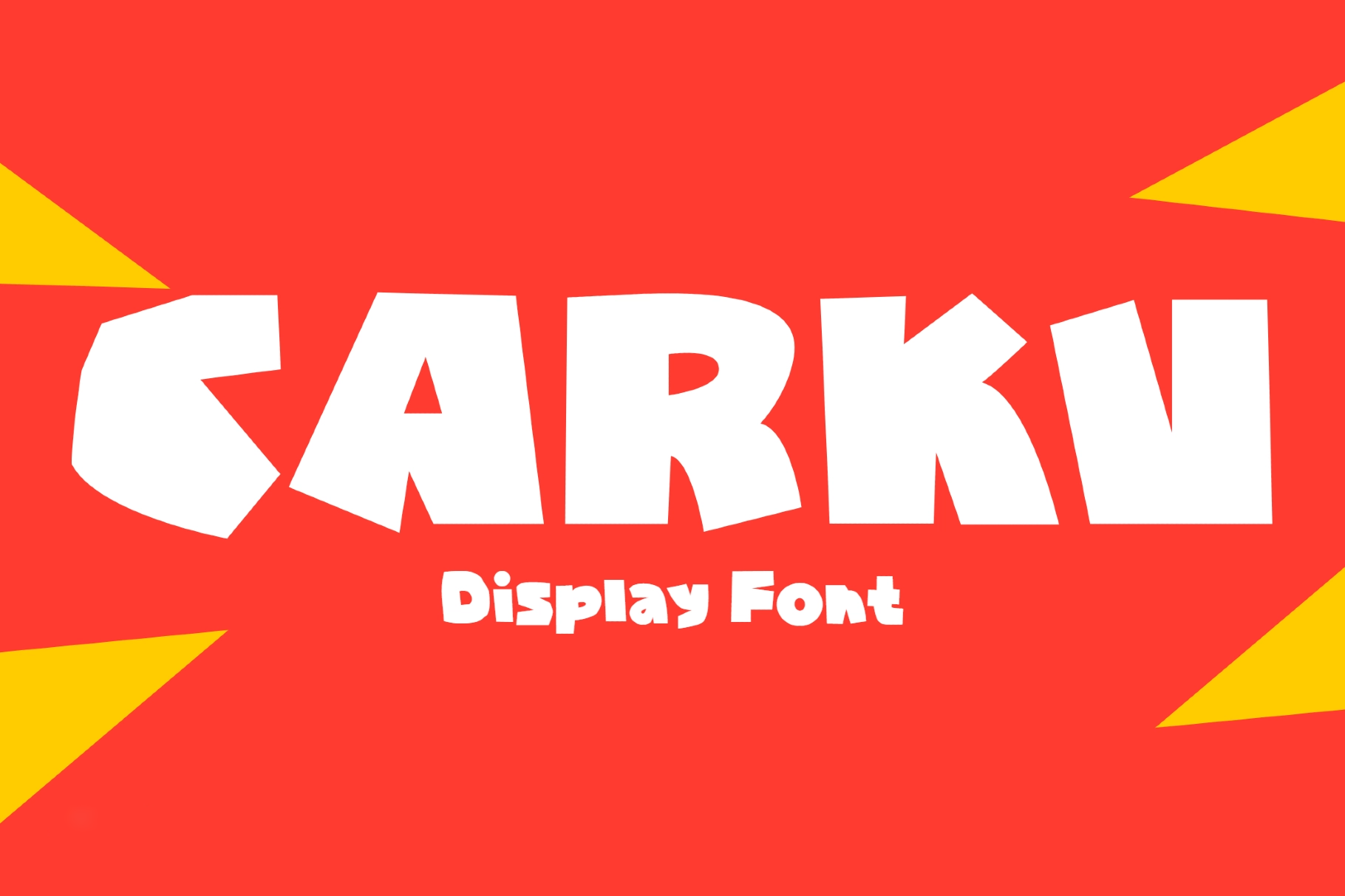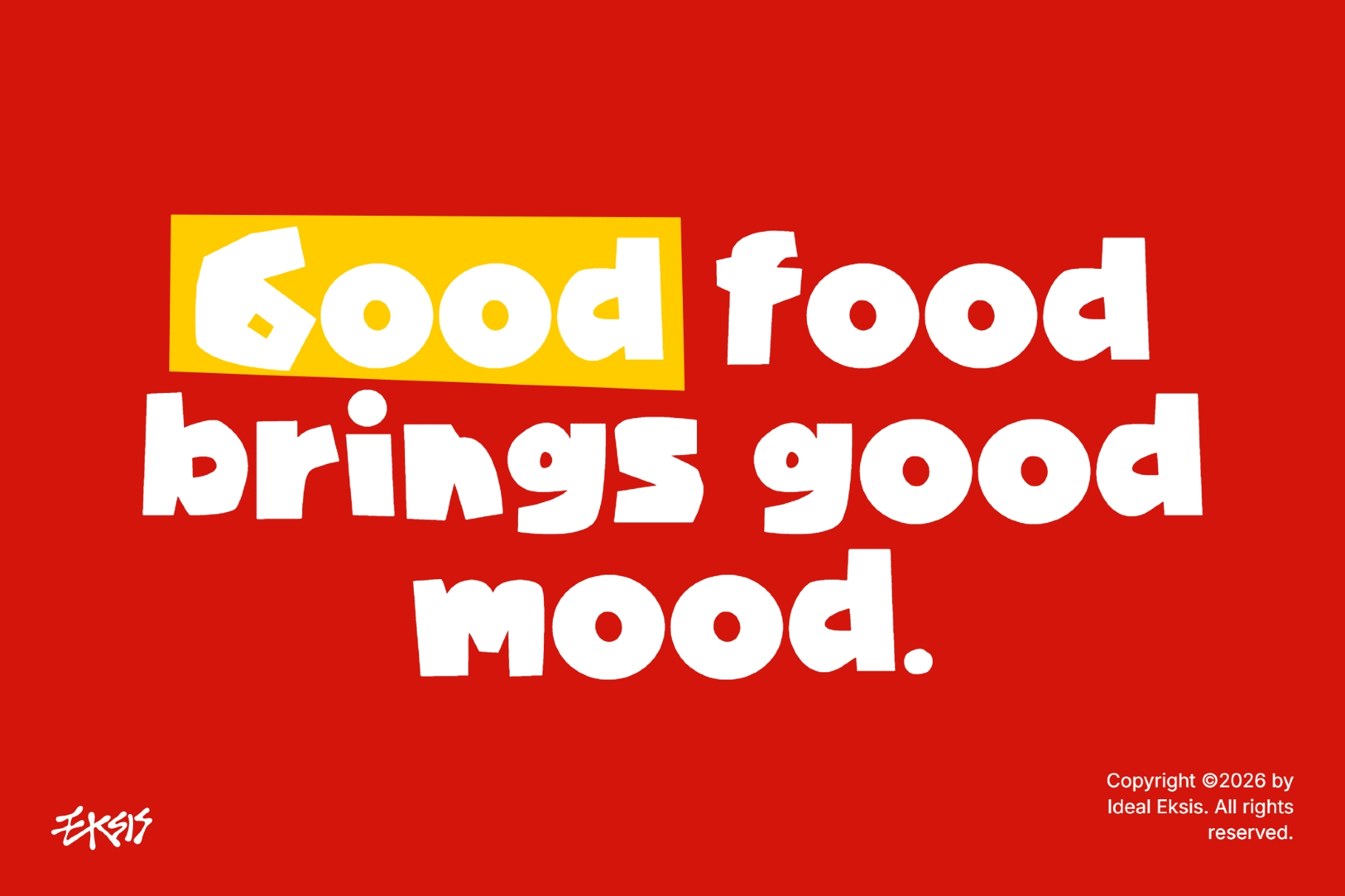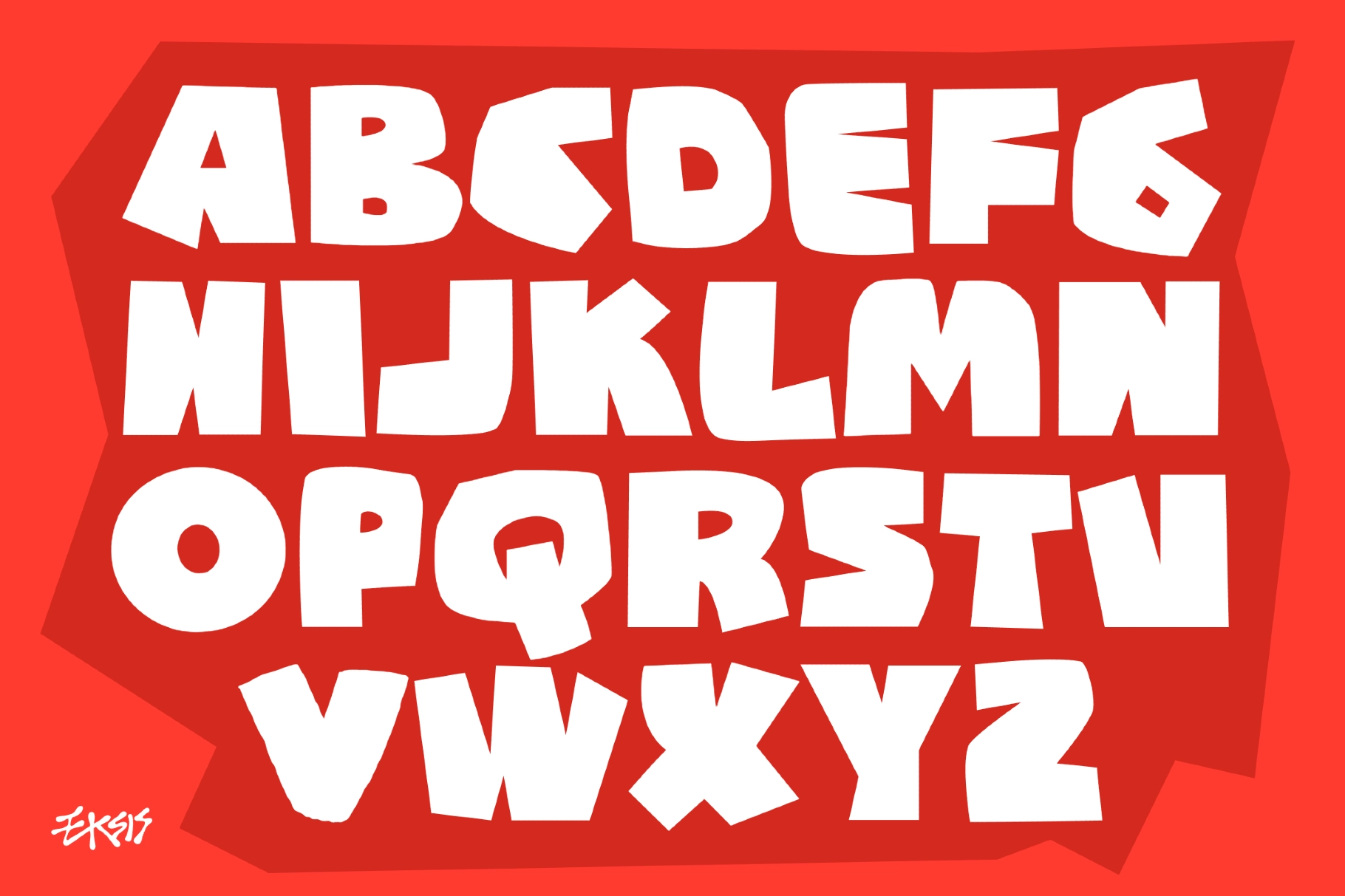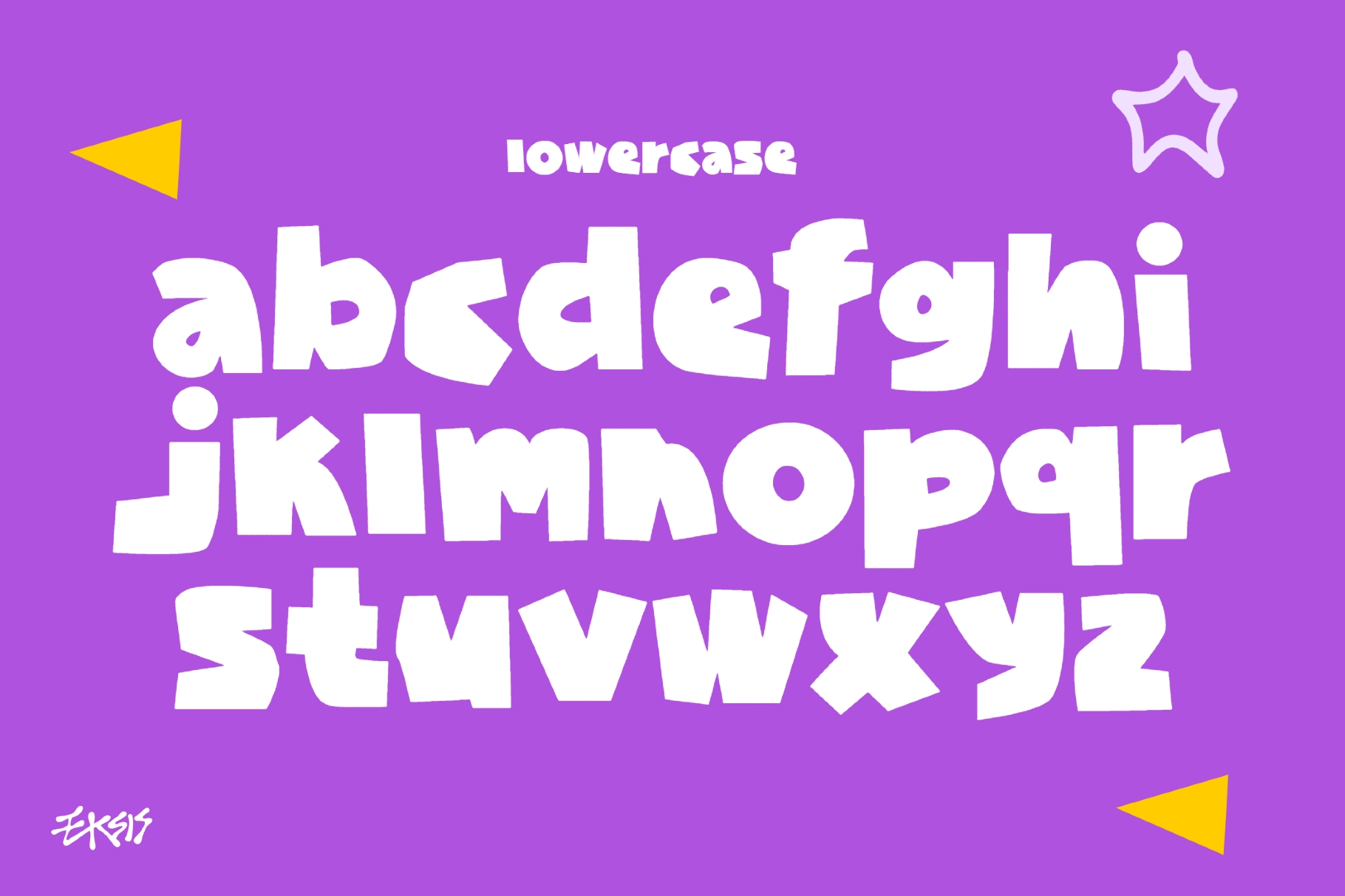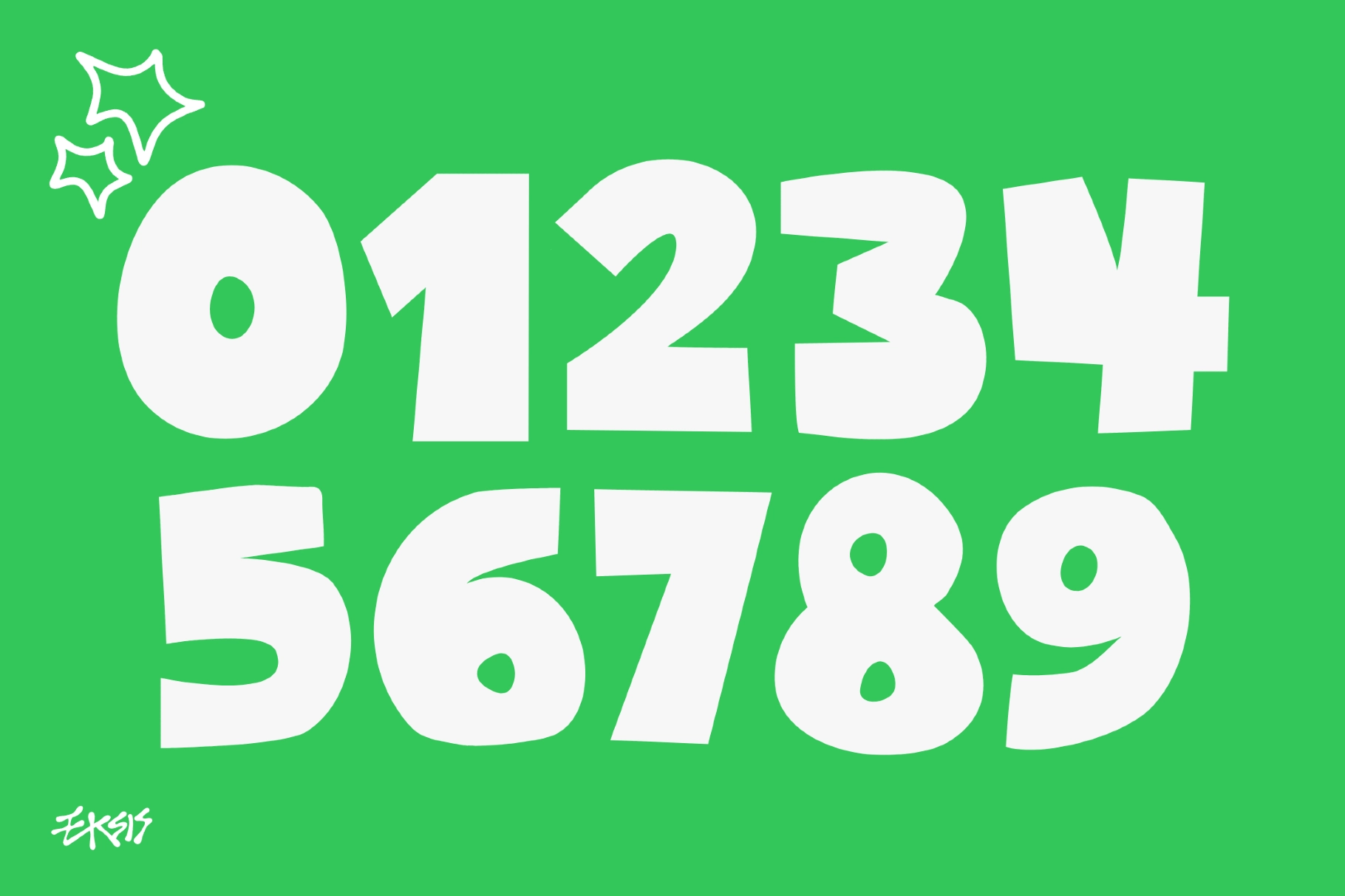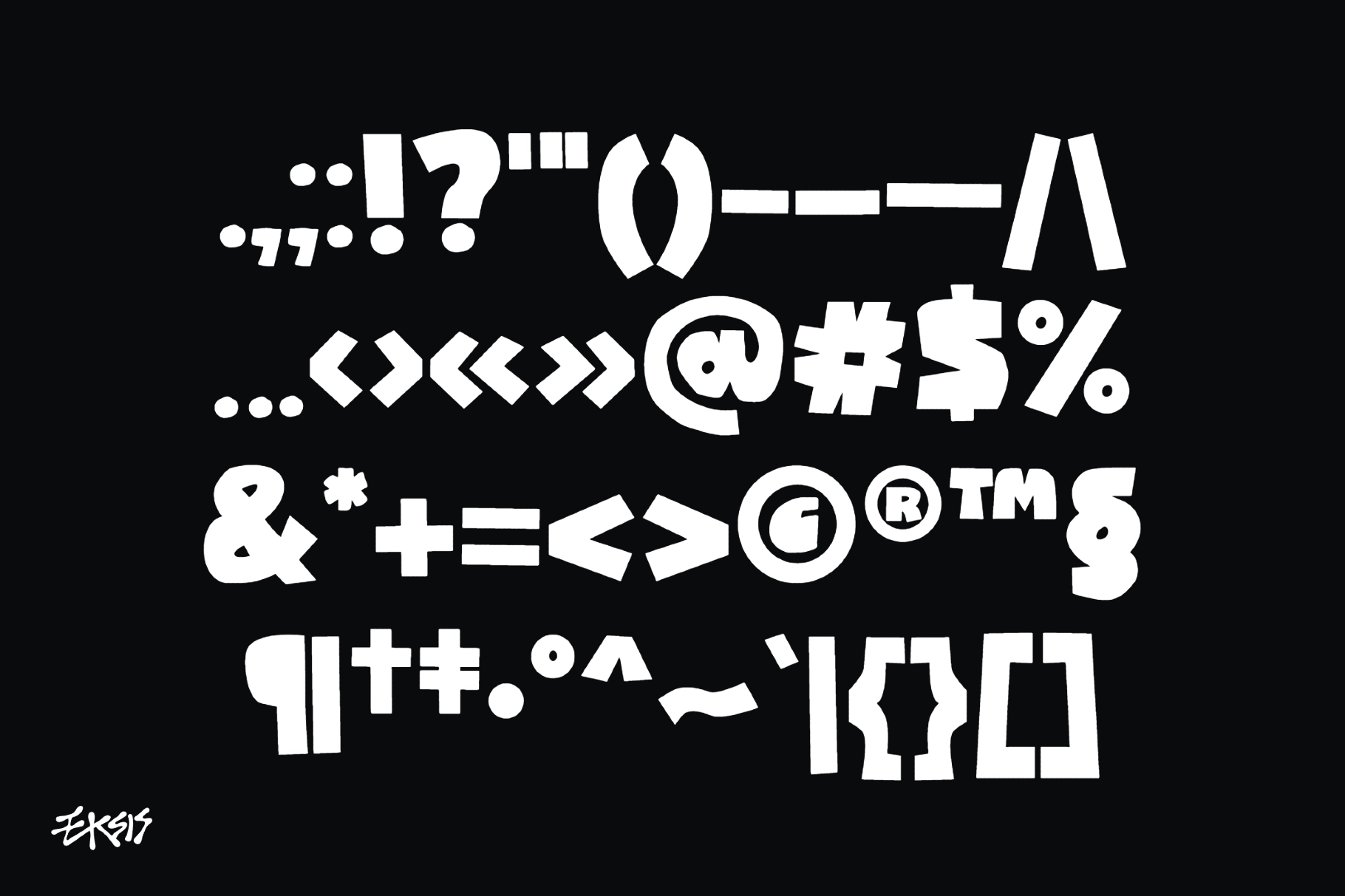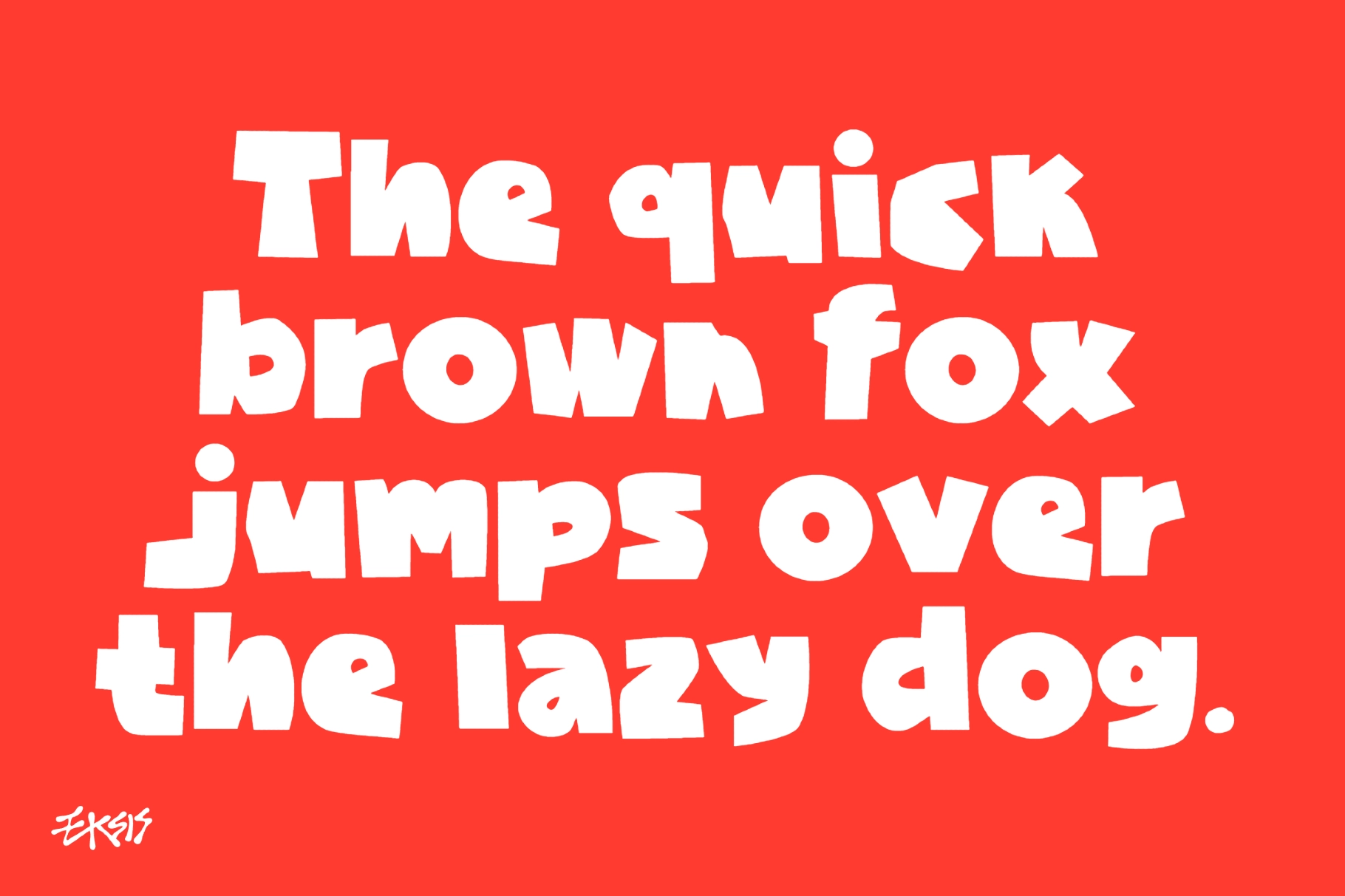
Carku - Bold Cartoon Display Font
Carku cuts its letters like a hand-torn paper sign ripped off a skate ramp — thick, uneven strokes, clipped corners, and a jagged, doesn't-quite-line-up edge that reads as deliberately rough rather than sloppy. This bold cartoon display font keeps that raw, hand-cut energy across the full set, uppercase and lowercase alike, so headlines and supporting text stay in the same rough-cut voice.
Carku works best set big and loud, where the chunky strokes and offbeat corners can hold a whole headline on their own. Use it for gaming logos, skate and streetwear branding, comic and cartoon titles, sticker packs, poster and flyer design, packaging, merch prints, social media graphics, and album covers.
• Uppercase & lowercase;
• Numerals, punctuation & symbols;